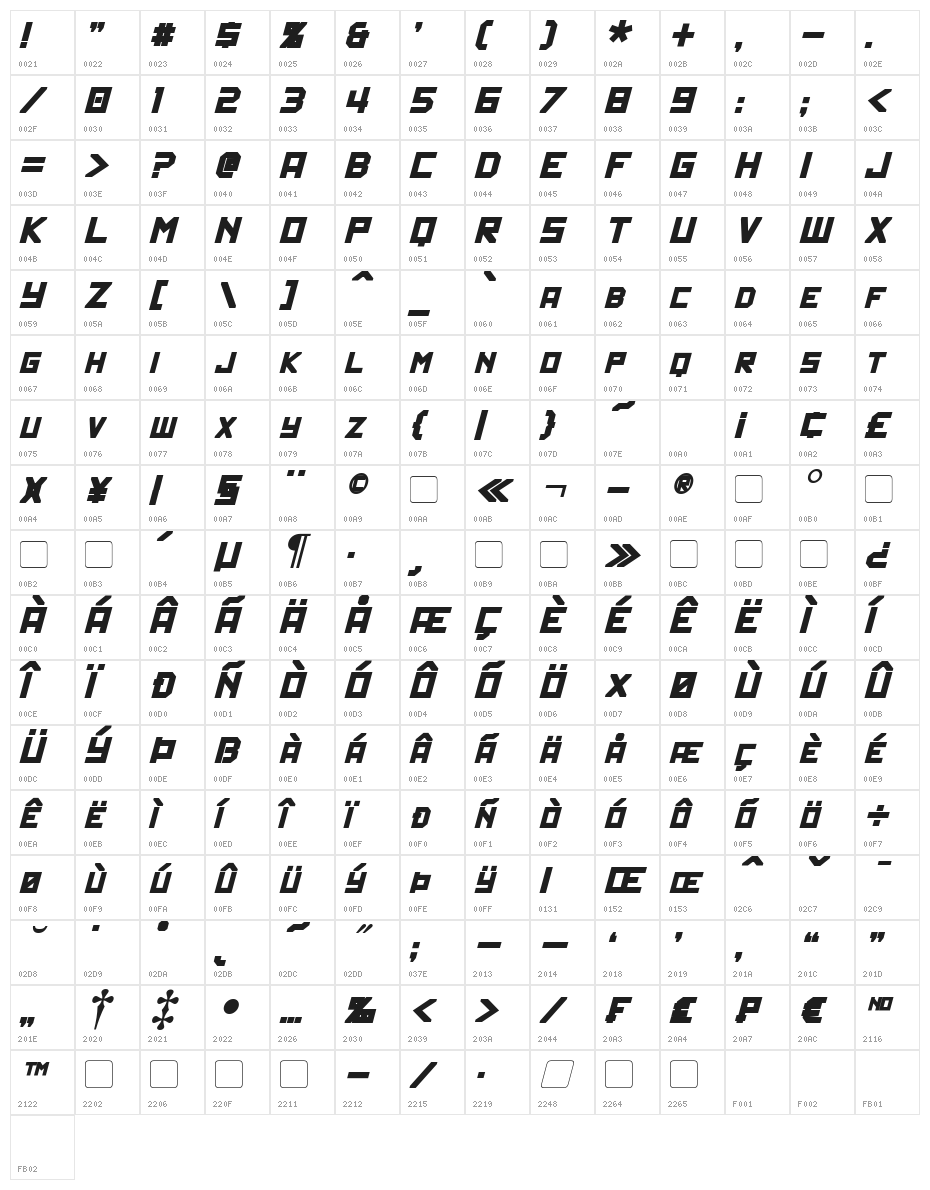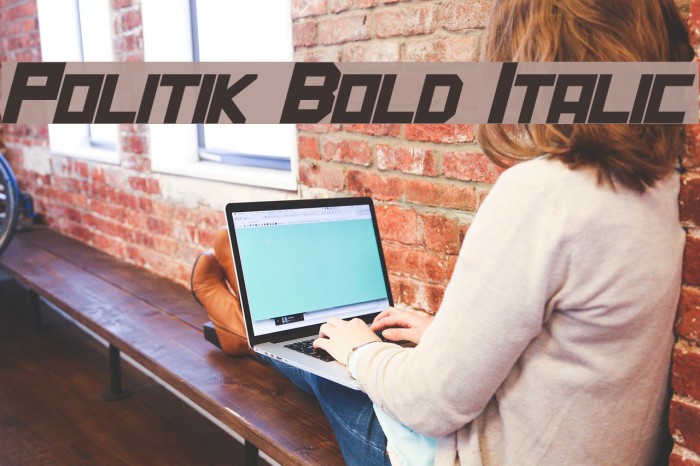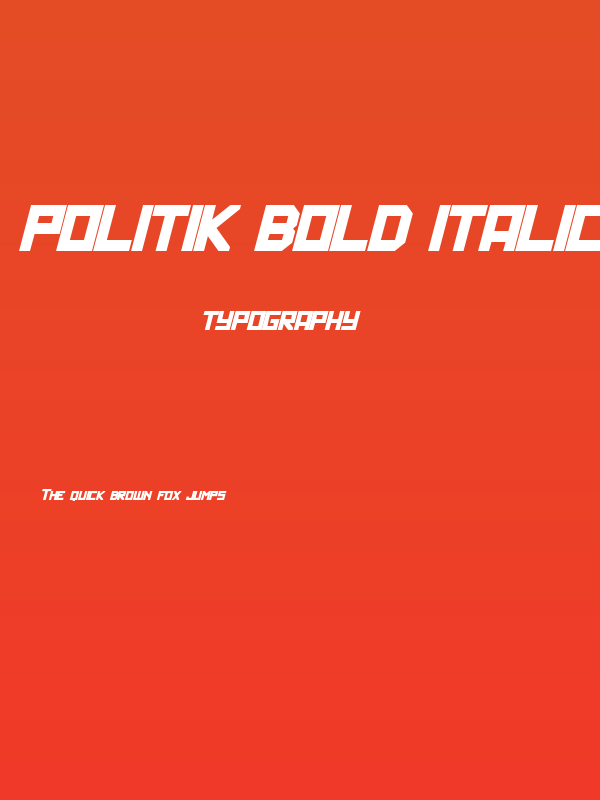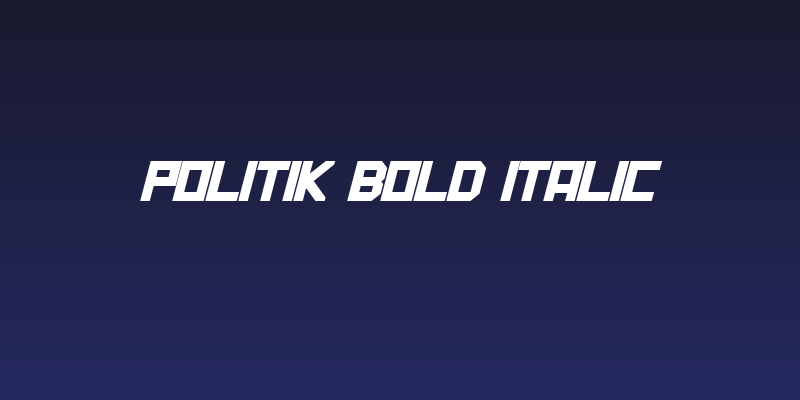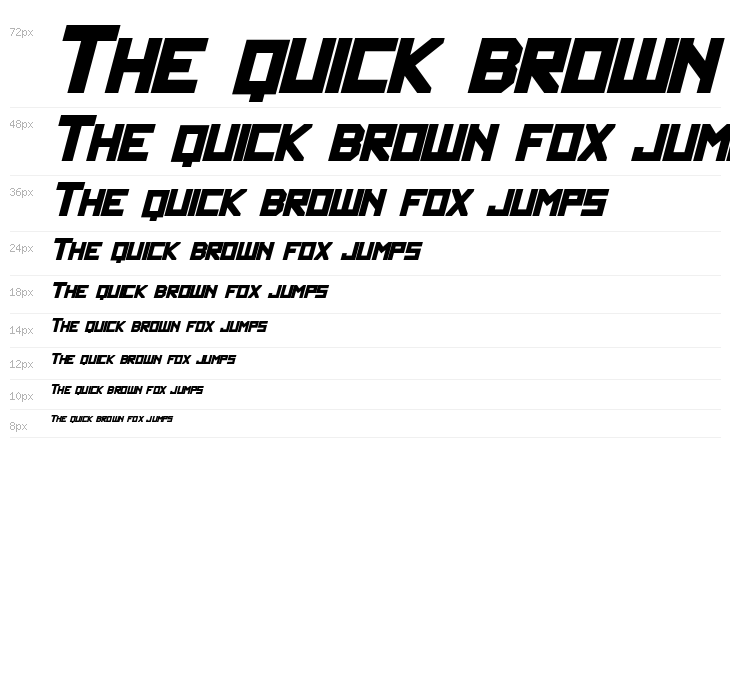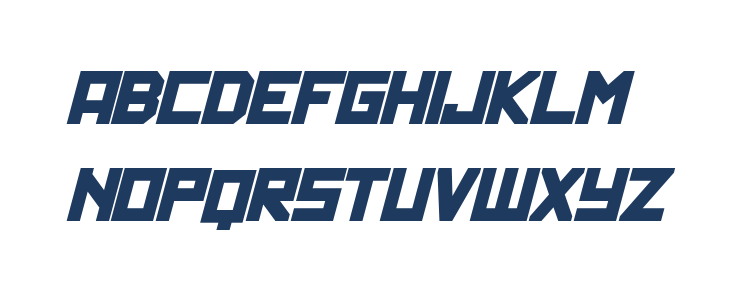
Politik Bold Italic Font
Politik Bold Italic Description
This font features a bold and italicized style with a modern, angular design. The characters are sharply defined with a distinct slant, giving it a dynamic and energetic appearance. The uppercase and lowercase letters maintain a consistent geometric structure, while the numerals and special characters follow the same angular theme. The font's bold weight and italic posture make it stand out, suitable for attention-grabbing headlines or impactful logos. Its unique style is both contemporary and assertive, ideal for projects that require a strong visual presence.